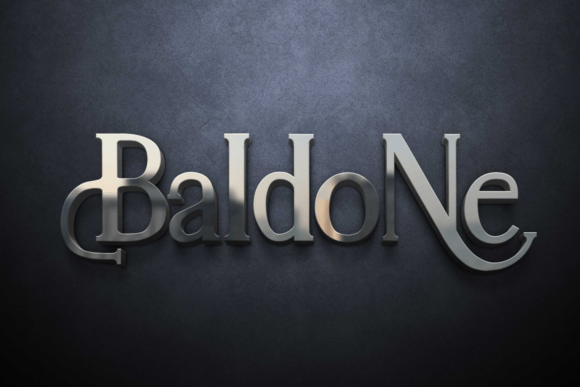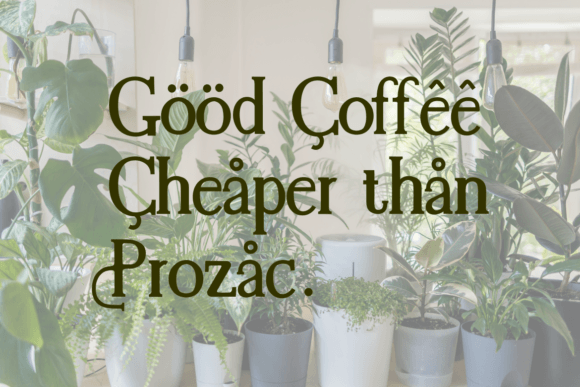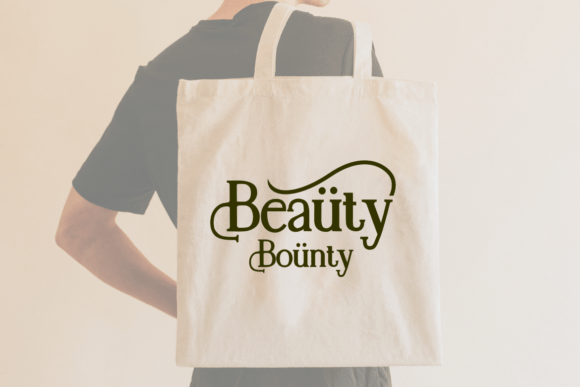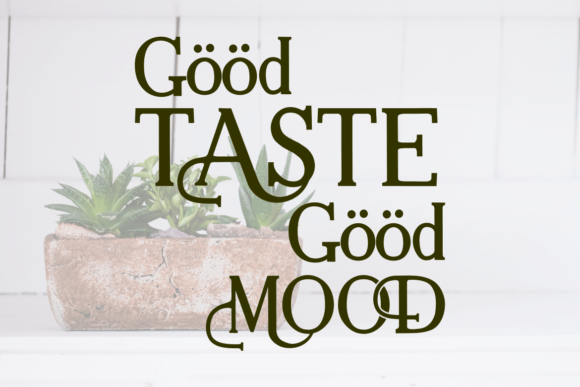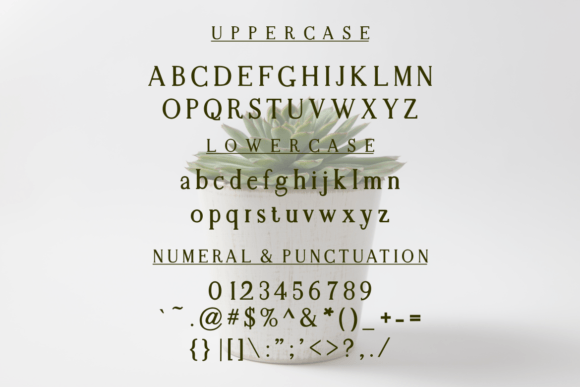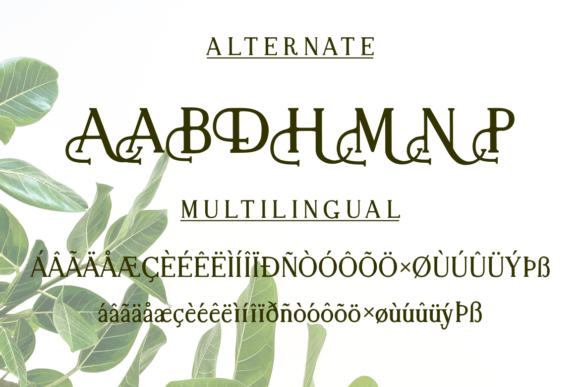
The Designer’s Delight: Uncovering the Power of Baldone Font
I’ll never forget the time I was working on a project for a high-end fashion brand, and I was struggling to find the perfect font to convey their luxurious image. The client was specific about wanting a font that was both modern and sophisticated, with a touch of elegance. After hours of scouring through font libraries, I stumbled upon Baldone Font, and it was love at first sight! 💕
With its strong, sharp lines and original touch, Baldone Font was exactly what I needed to elevate the brand’s typography. In this article, I’ll share my experience with Baldone Font, its features, and how to make the most of it in your designs.
What I Love About Baldone Font ✨
- ✅ Modern serif design: Baldone Font boasts a sleek, contemporary look that’s perfect for titles, typography, posters, magazines, brochures, packaging, websites, and more!
- ✅ High versatility: Its sharp lines and elegant curves make it suitable for a wide range of design projects, from fashion to technology.
- ✅ Excellent readability: The font’s clear structure and well-spaced letters ensure that your text remains legible, even at smaller sizes.
While Baldone Font is an excellent choice for many design projects, there are a few things to keep in mind:
- ⚠️ Limited free alternatives: As a premium font, Baldone Font may not have as many free alternatives or similar fonts with the same level of quality.
- ⚠️ May require manual kerning: Depending on the specific design and text, you may need to adjust the kerning to achieve optimal results.
Baldone Font was designed with the intention of creating a modern, versatile serif font that could cater to a wide range of design needs. The designer aimed to craft a font that was both strong and elegant, with a unique touch that would set it apart from other serif fonts.
Q: What makes Baldone Font unique?
A: Baldone Font’s unique blend of modernity and elegance, combined with its strong, sharp lines, sets it apart from other serif fonts.
Q: Is Baldone Font suitable for digital use?
A: Absolutely! Baldone Font is optimized for digital use, with clear lines and excellent readability on various screens and devices.
Q: Can I use Baldone Font in multiple languages?
A: Yes, Baldone Font supports multiple languages, making it a great choice for global branding and design projects.